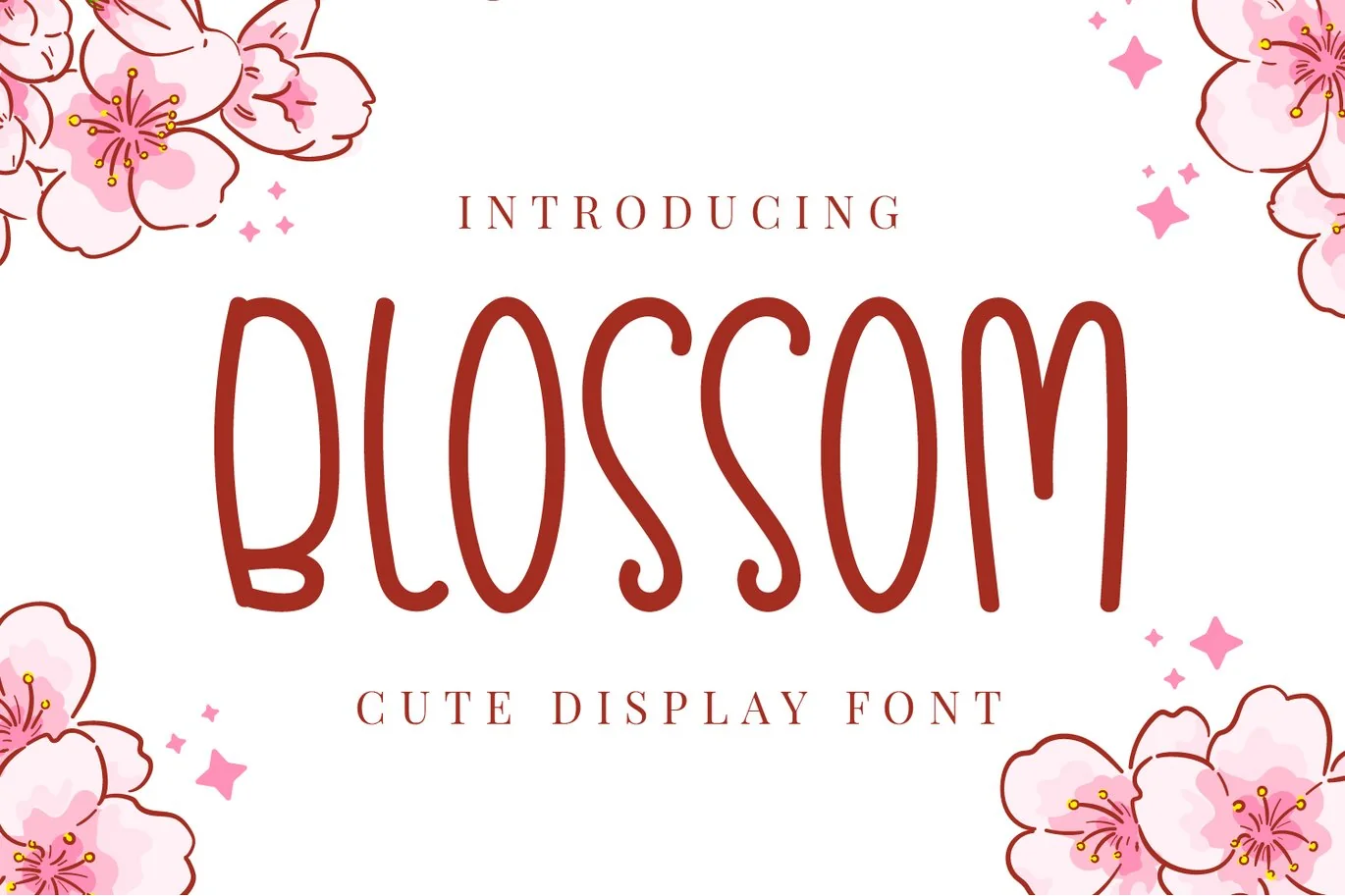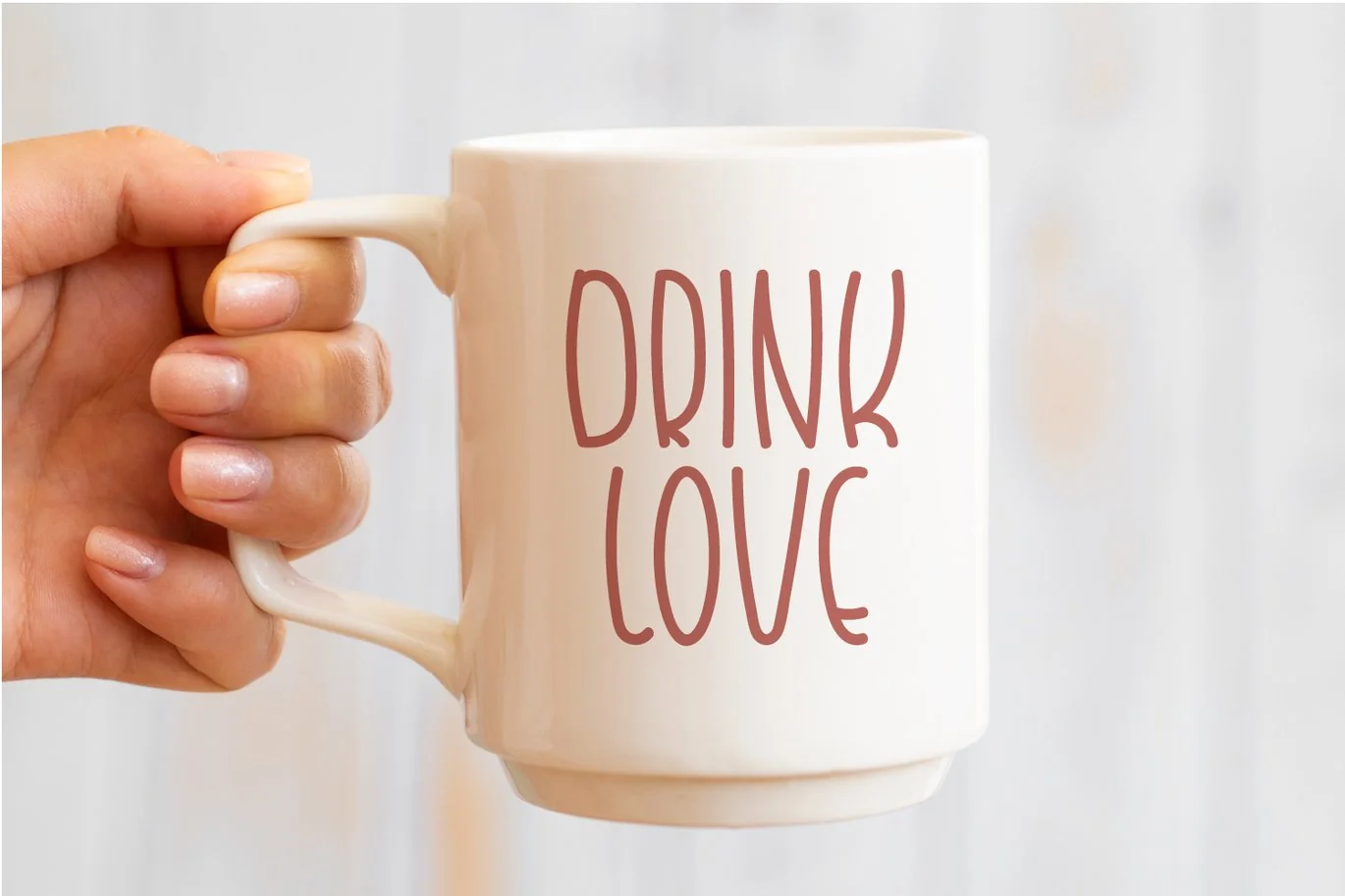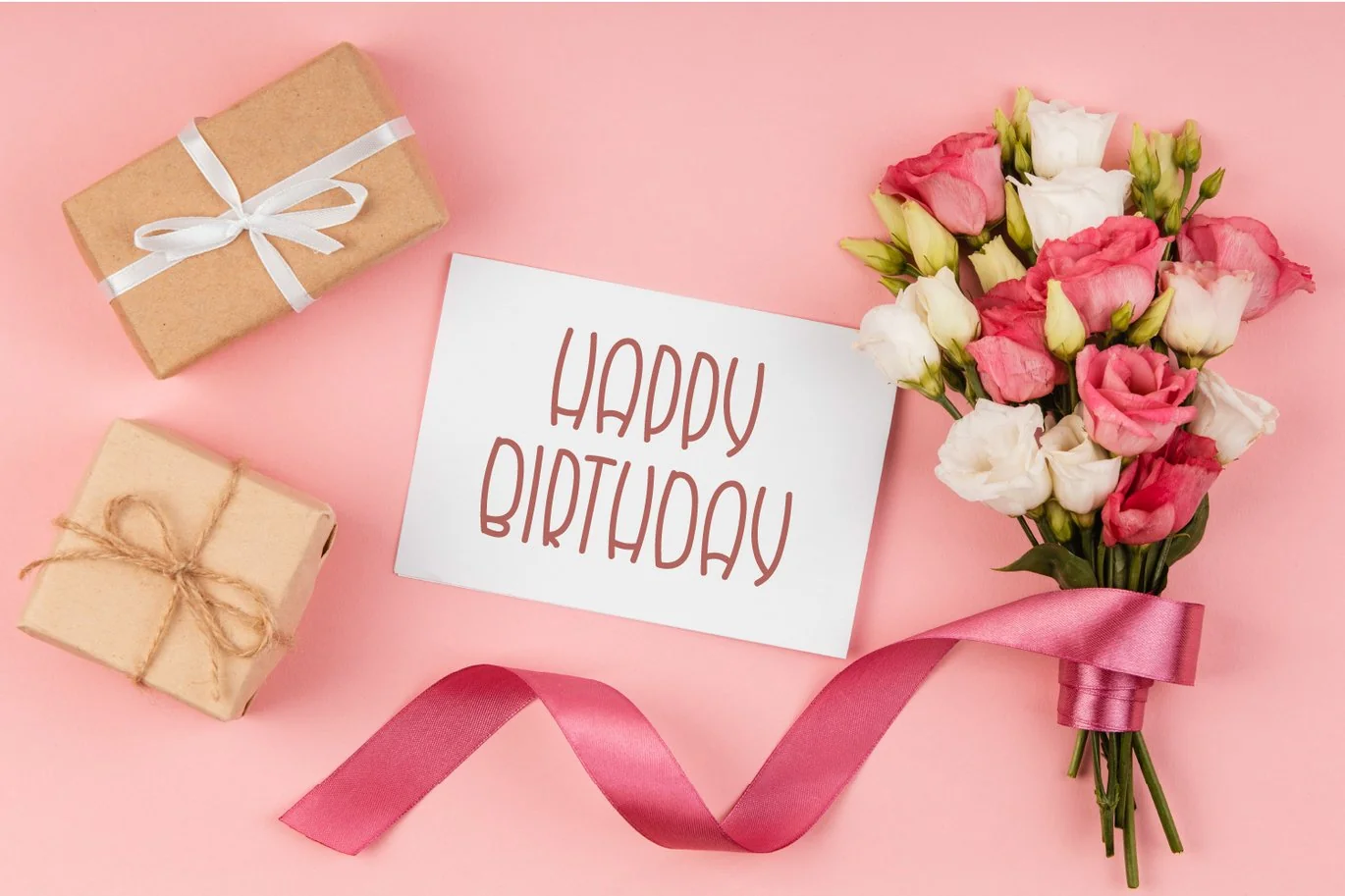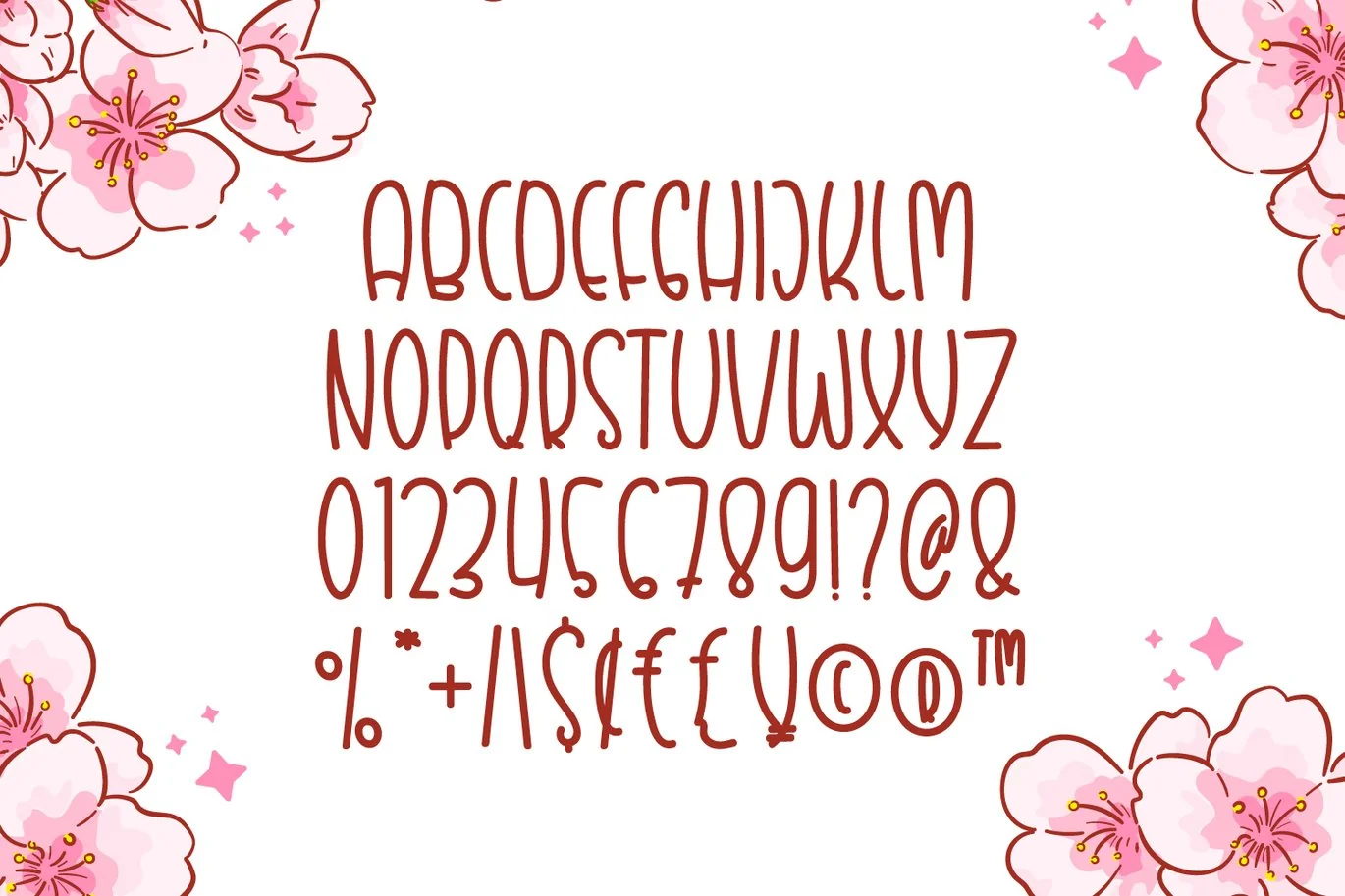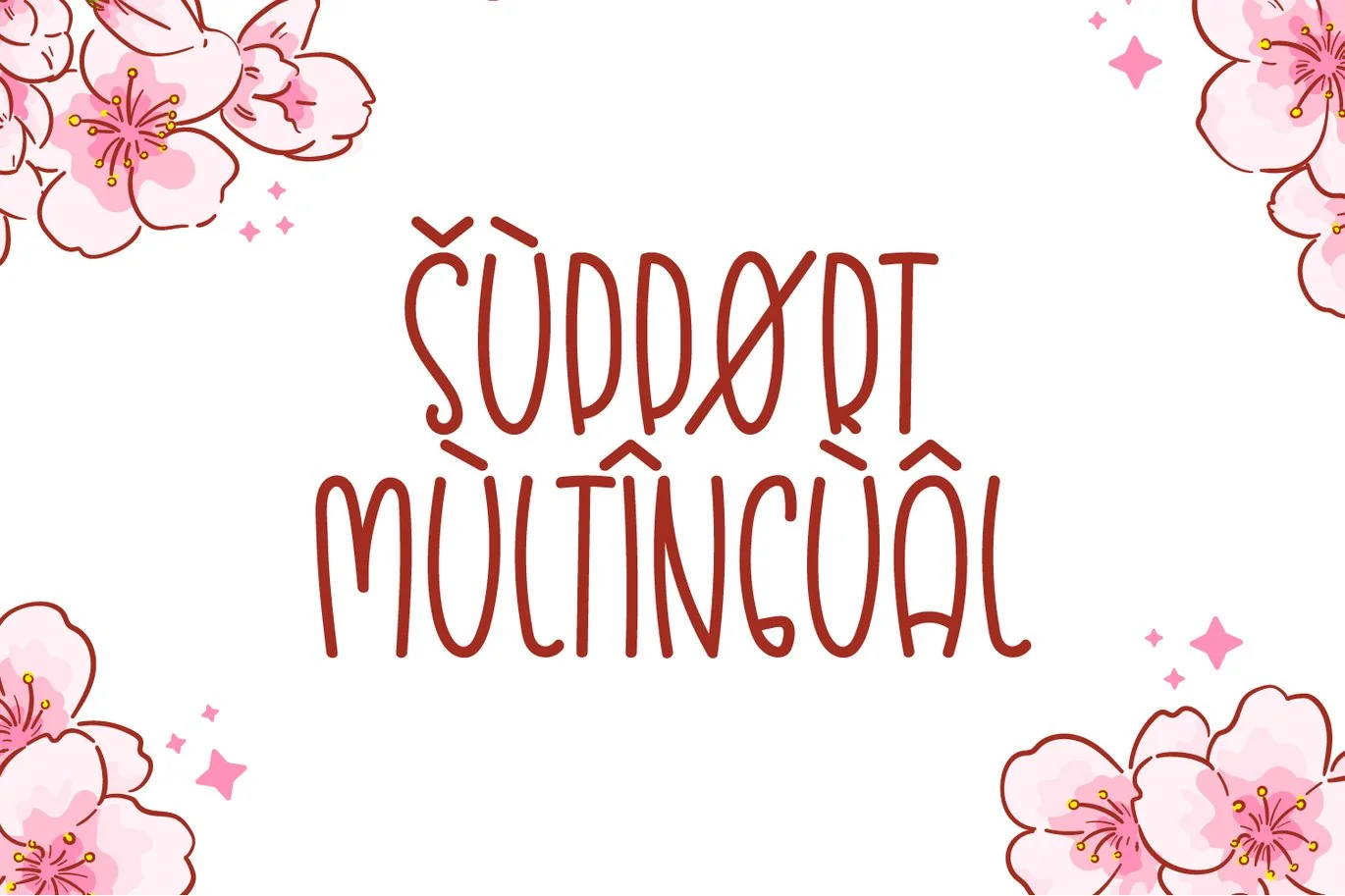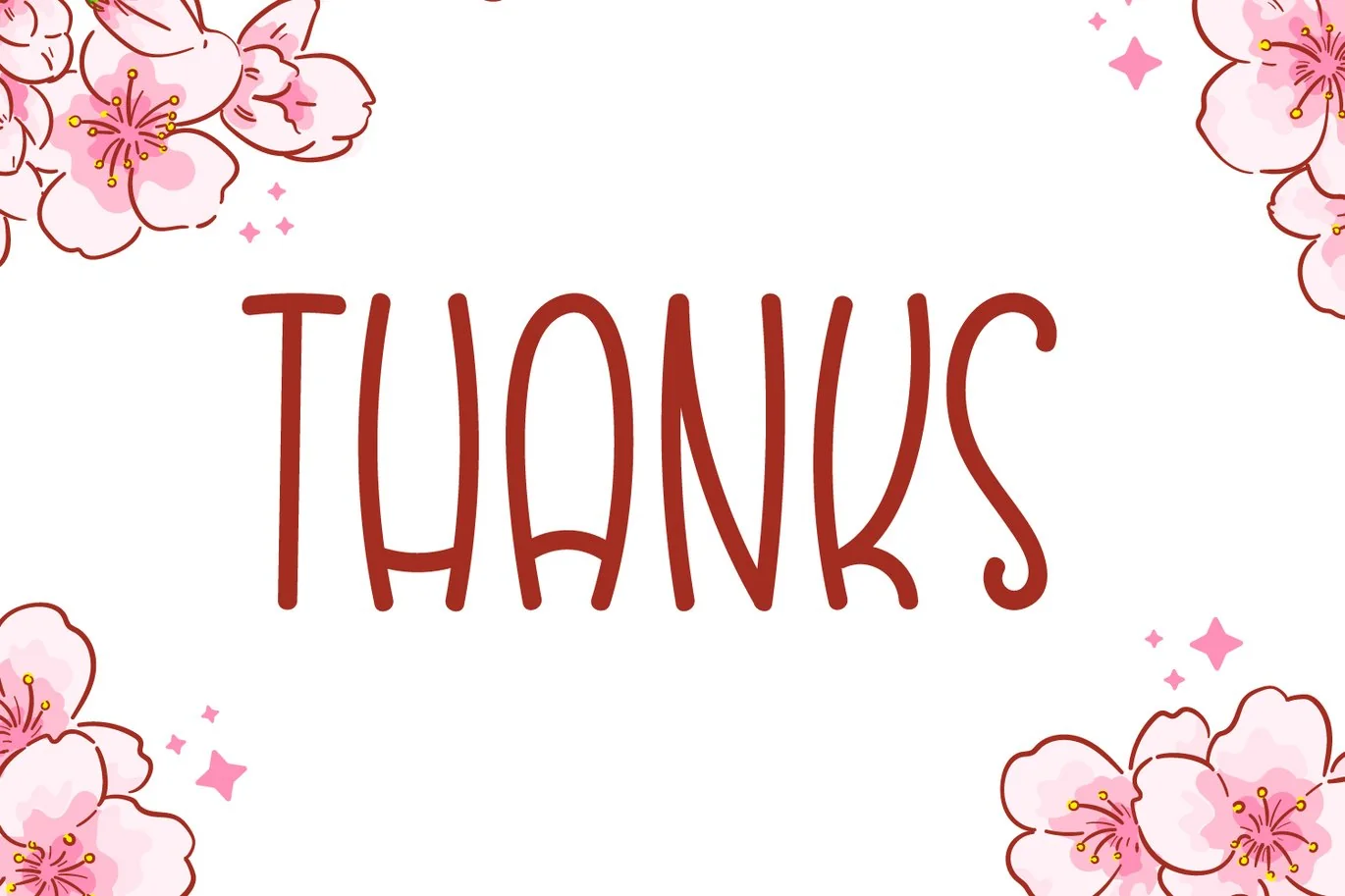
Blossom – Cute Handwriting Font
Introducing Blossom – Cute Handwriting Font
Blossom is a cute and simple display font. Whimsical and a bit quirky, this font will brighten up each of your designs. Add it confidently to your projects, and you will love the results.